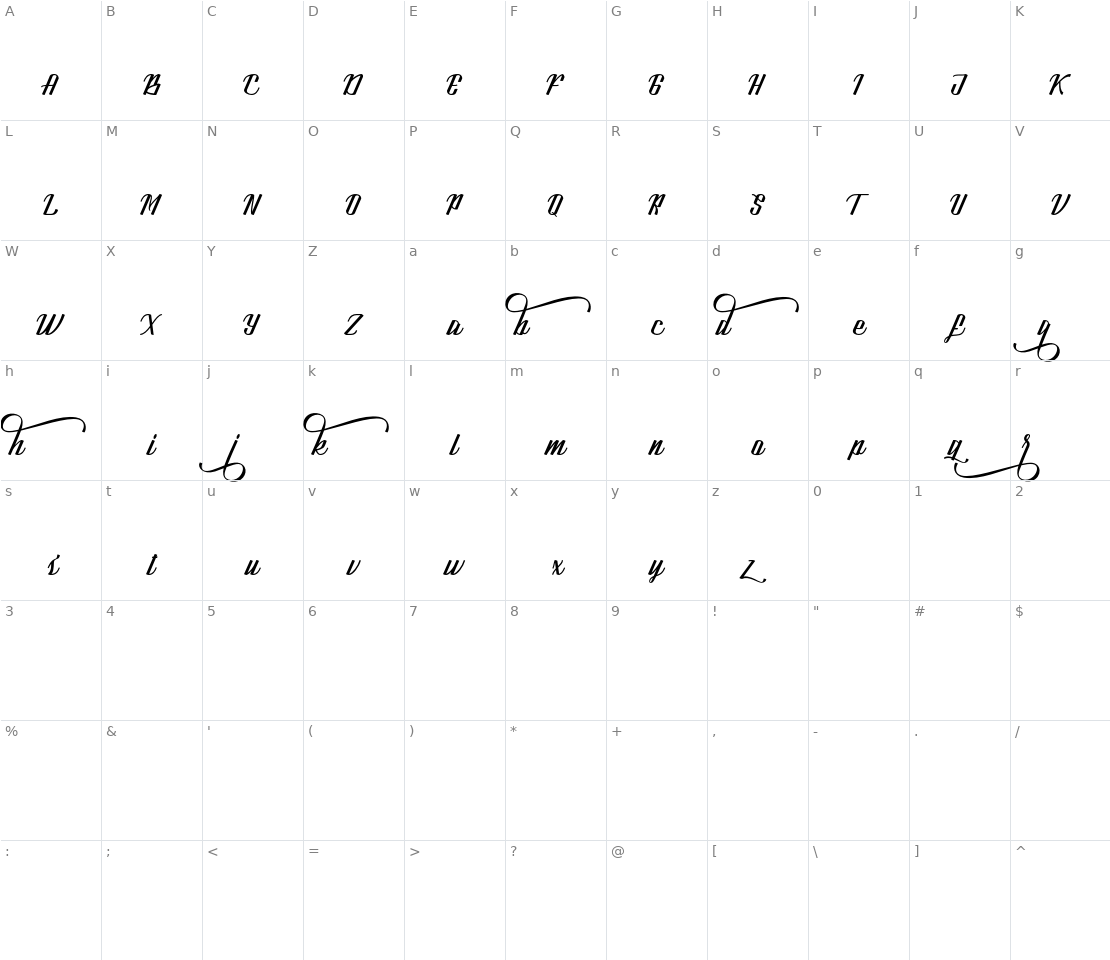
Look
Look is an elegant cursive script from Elementype with sweeping swash capitals and delicate flourishes that give it a distinctly feminine, formal personality. The flowing letterforms feel right at home on wedding invitations, event stationery, and beauty branding where graceful detail matters. Best kept to headlines and short text where the ornamental strokes have room to breathe.